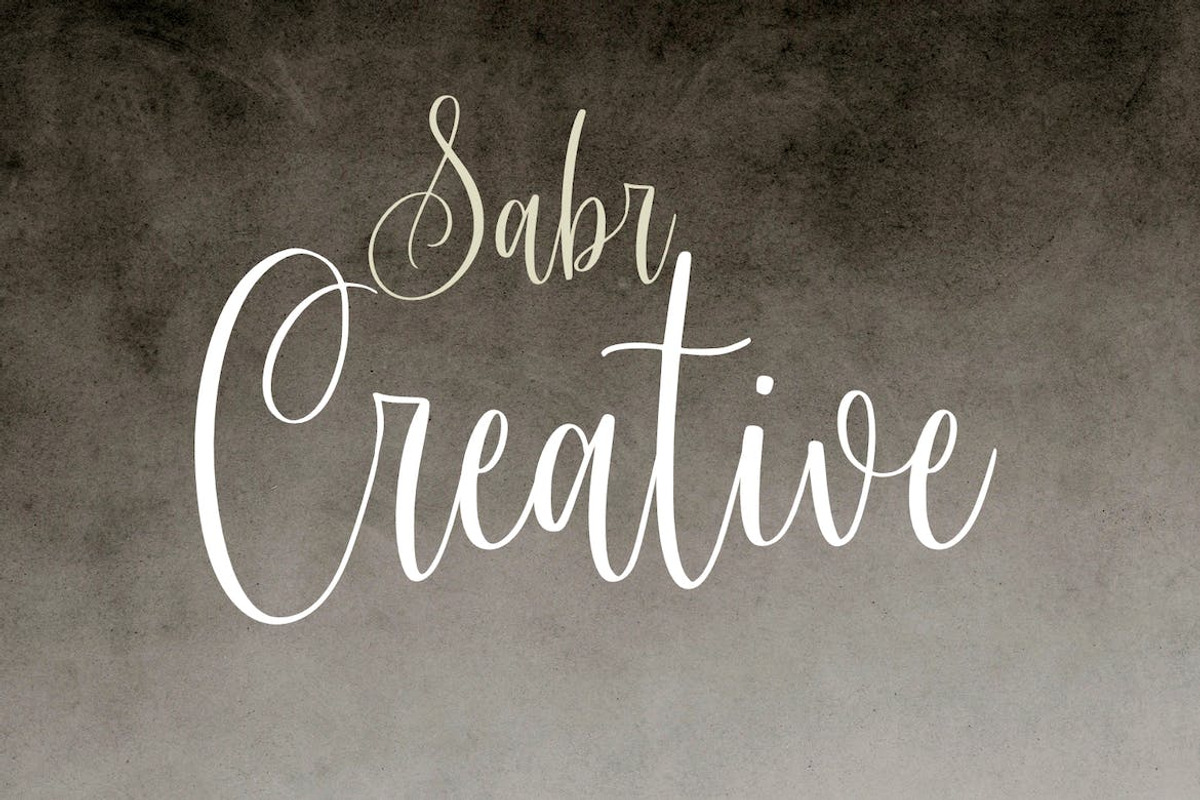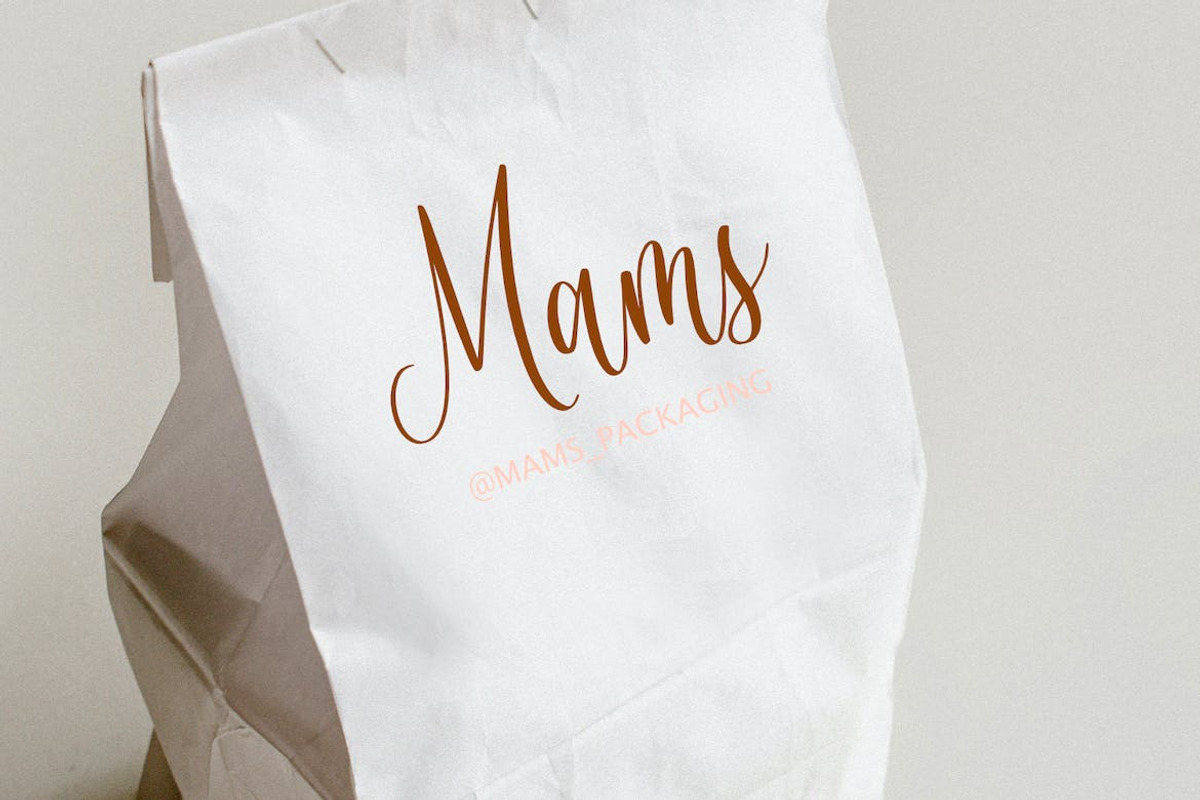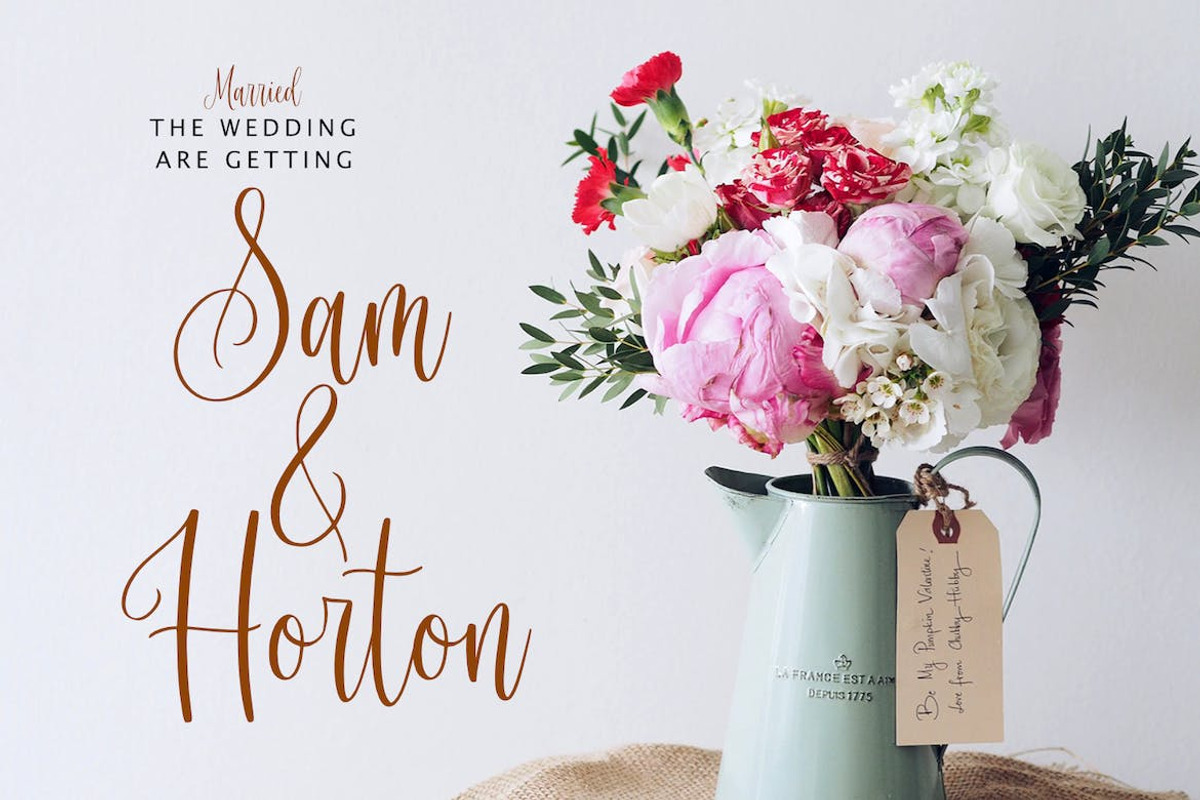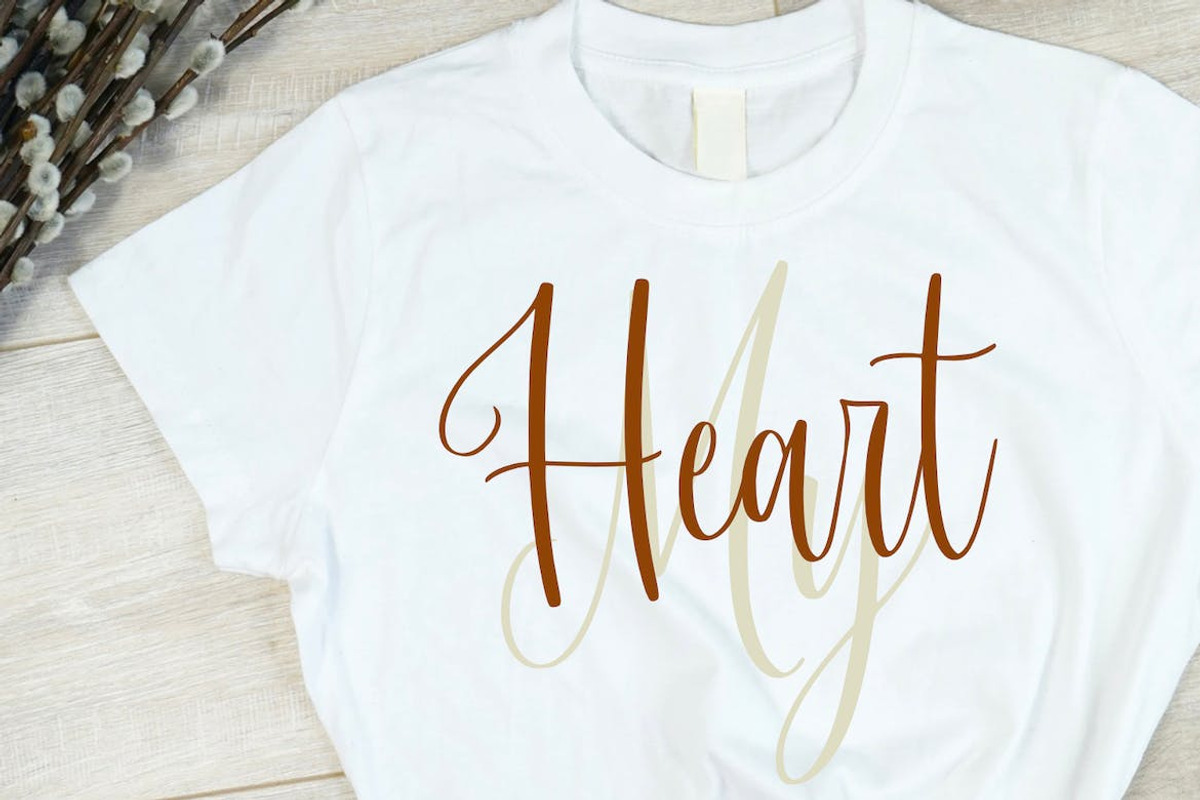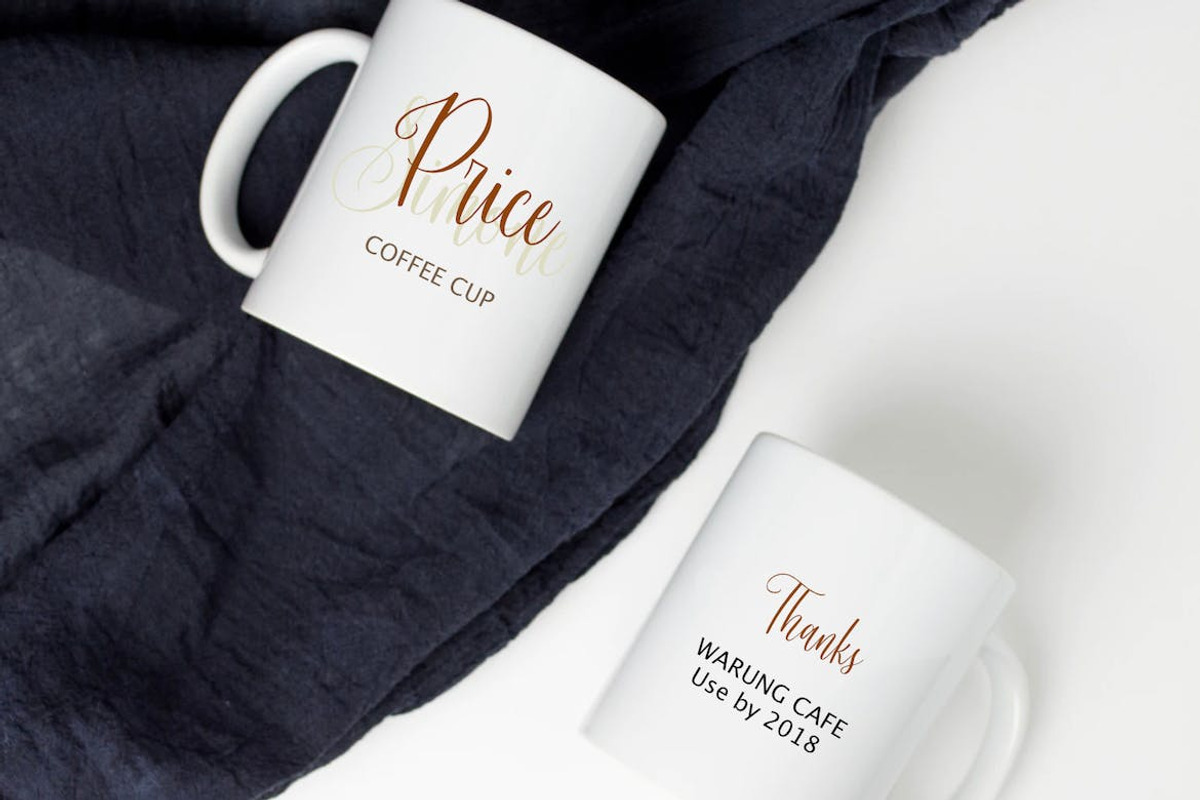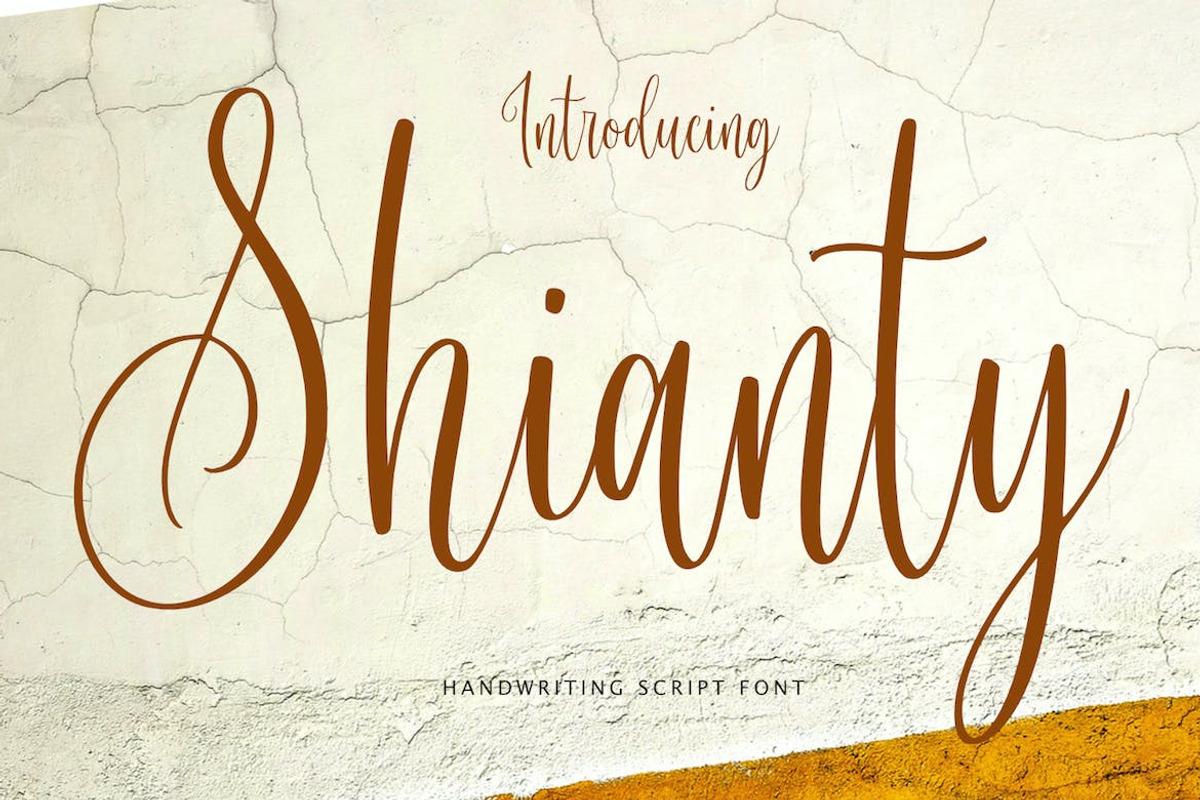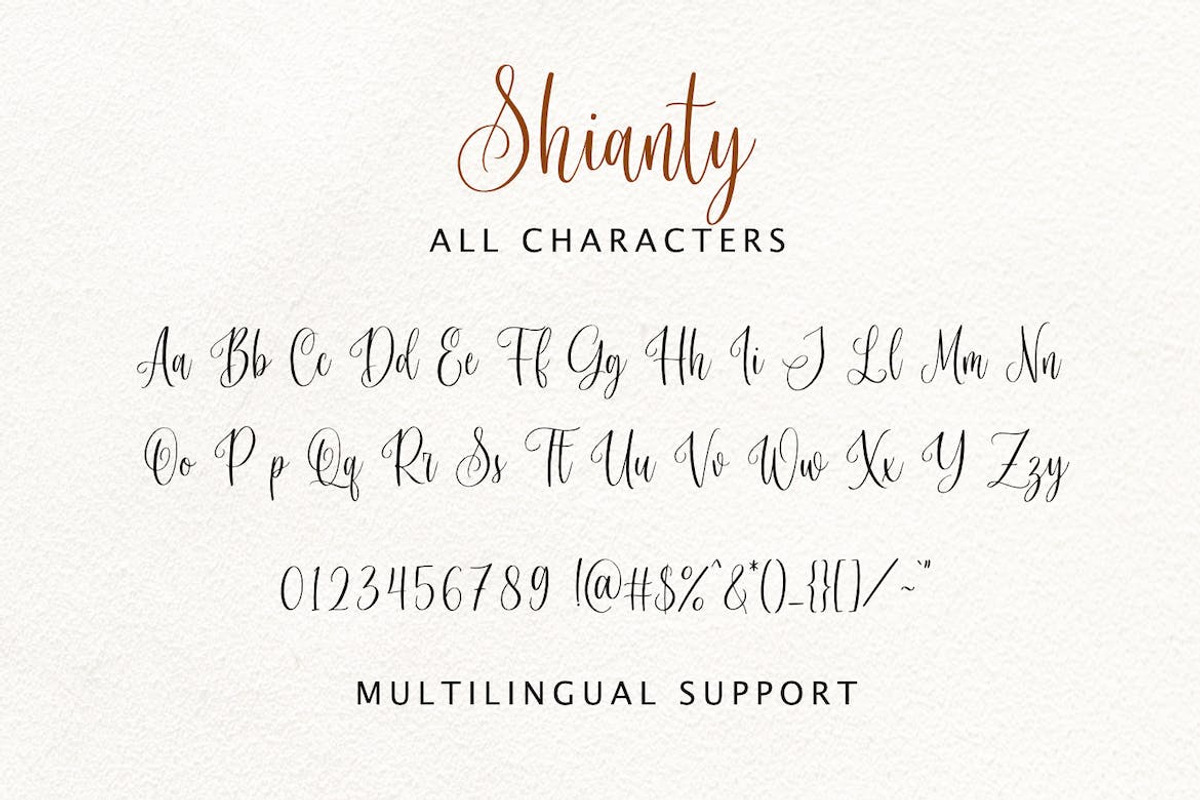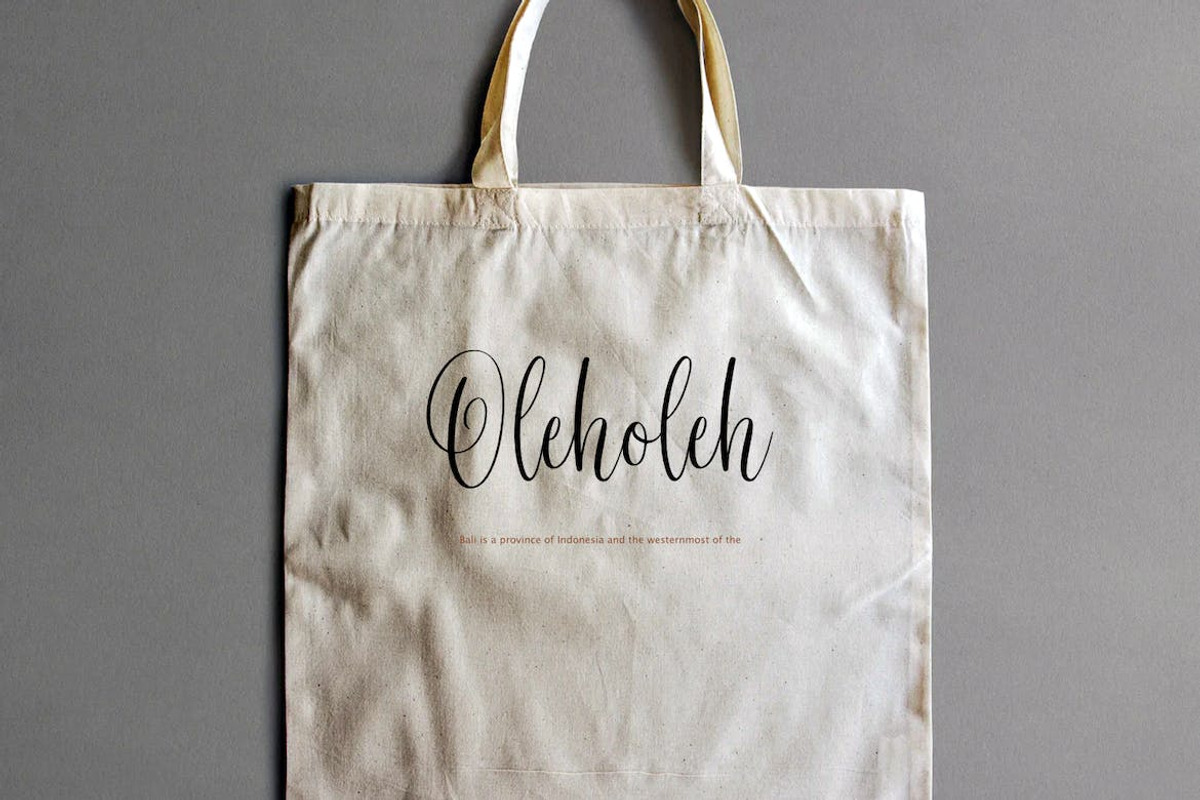
Shianty Script - Elegant
Introducing Shianty Script, a stunning font with a beautiful and girly style that adds a touch of elegance to your projects. With its easy-to-use nature, this font is perfect for various design purposes. Create logos, labels, magazines, books, greeting/wedding cards, packaging, fashion, book covers, and more with this versatile font.
Shianty Script features both uppercase and lowercase letters, numbers, punctuation marks, multilingual support, ligatures, and PUA encoding. Unlock your creativity and explore endless design possibilities with this elegant font.
Elevate your designs to new heights with Shianty Script, a must-have font for designers seeking a perfect blend of style and versatility.